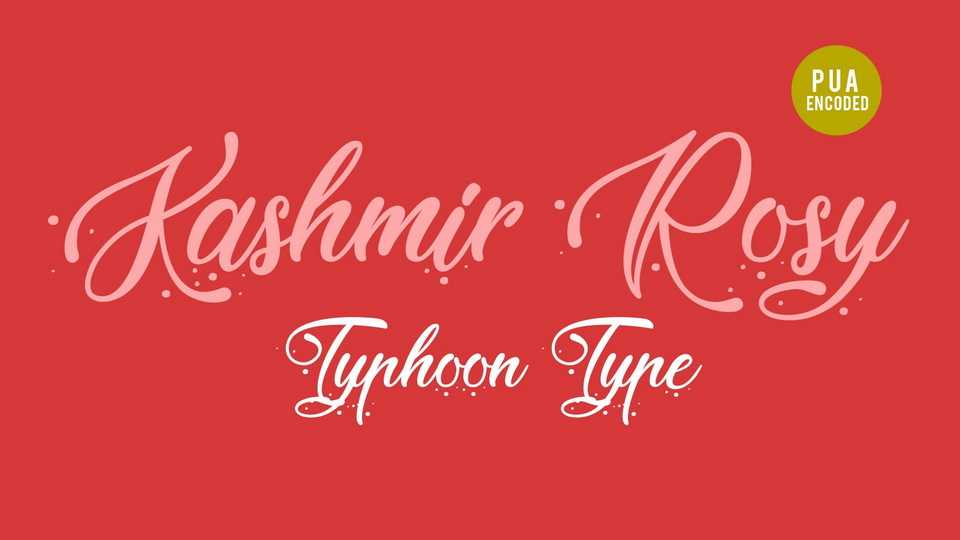
Download Kashmir Rosy font, a beautiful modern calligraphy script with classy look. Kashmir Rosy is perfect for logos, name tag, advertising, product packaging, clothing, social media & greeting cards.
Designer: TyphoonType